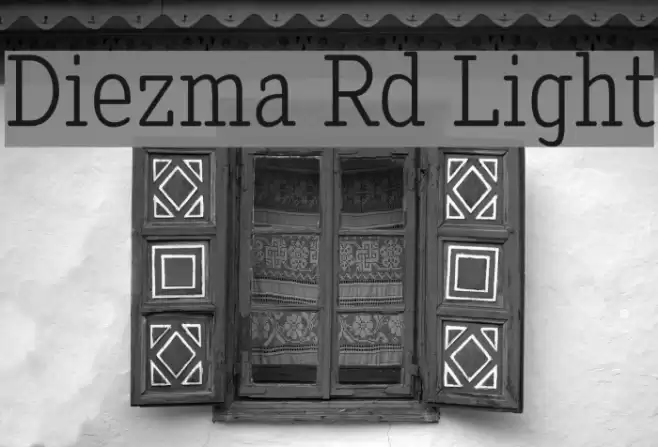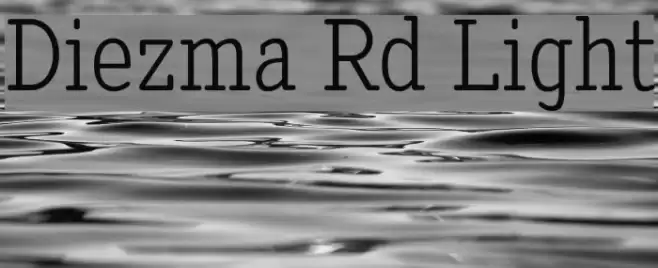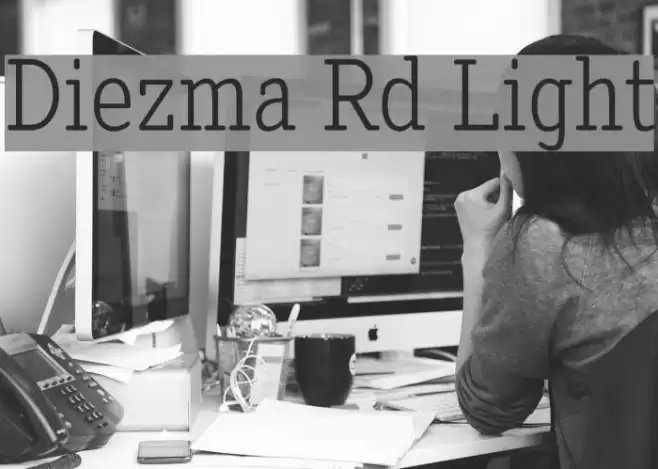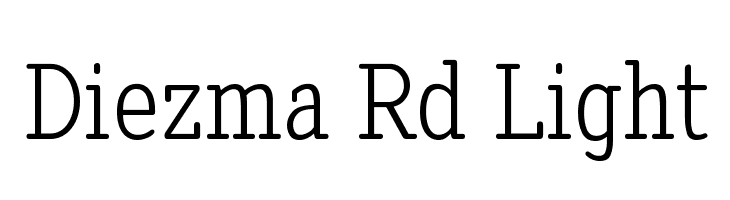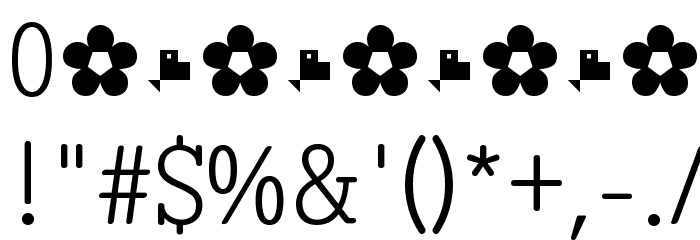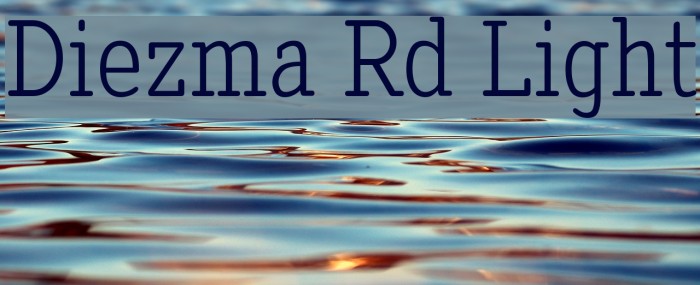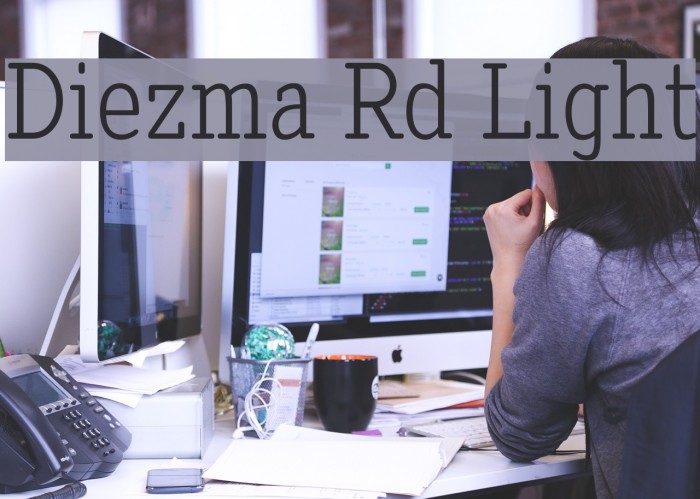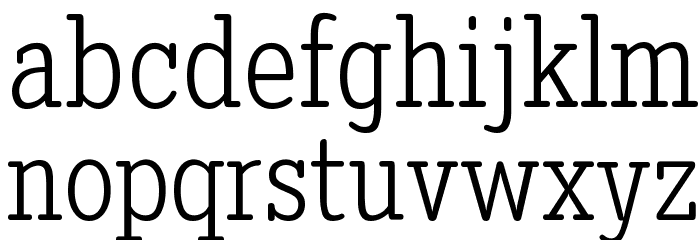
Diezma Rd Light Font
Diezma Rd Light Description
This font exhibits a classic serif style with a modern twist. The characters are well-defined with a consistent stroke width, giving it a clean and professional appearance. The uppercase letters are bold and authoritative, while the lowercase letters maintain a balanced and approachable look. The numerals are clear and easy to read, making them suitable for various applications. The special characters are distinct and harmonize well with the overall design. This font is versatile, offering a timeless elegance that can enhance both digital and print media.
A modern serif font with clean lines and balanced proportions from Uncategorized fonts.
- Proposed Projects: Ideal for editorial design, branding, and corporate communications.
- Use Case: Body text, Headlines, Editorial design